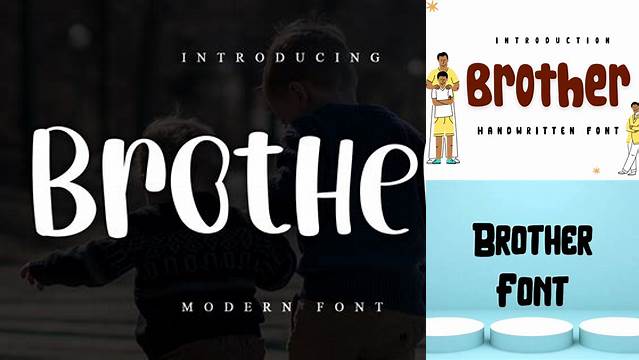
My Brother Font: Free Download & Uses
H2: Unleashing the Power of My Brother Font: A Deep Dive 🔍
My Brother Font is a font that has been used extensively for a variety of design purposes. The font’s popularity stems from its unique and easily recognizable characteristics, making it a go-to choice for designers looking to create a memorable visual impact. My Brother Font isn’t just a set of characters; it's a design element that can significantly enhance the aesthetic appeal of any project, be it a website, a poster, or even a personal invitation. When you choose My Brother Font, you're not just picking a typeface; you're selecting a tool that enables effective communication through visually captivating designs. It's the choice to use a font that is modern and approachable. The font's ability to blend seamlessly into various design contexts further amplifies its appeal. From bold headlines that grab attention to sleek body text that enhances readability, My Brother Font provides versatility that few other typefaces can match. The design is not too heavy, nor is it overly complex, allowing it to be used in many different situations. Designers appreciate its clean lines and well-balanced proportions, making it a reliable choice for both professional and personal projects. To use My Brother Font successfully, consider the overall tone of your design. The font's modern aesthetic pairs particularly well with contemporary themes, while its versatility means it can be used in both formal and informal settings. You can customize the appearance, such as the size, color, and spacing, to suit your needs. Experiment with different styles and weights to see how they complement your overall design goals. It's all about playing with the tools available to you in the design space. Choosing My Brother Font can elevate your project and ensure it stands out. If you need something that's immediately recognizable, you can't go wrong with it. So, whether you are designing for print or digital mediums, My Brother Font offers a comprehensive solution that merges functionality with style. This is the kind of font that will bring your projects to the next level. Let’s explore how to best utilize My Brother Font!
H3: Exploring the Origins and Characteristics of My Brother Font 🧐
Ever wondered about the story behind My Brother Font? This section delves into its origins and key characteristics. Understanding the font's design and historical context will help you use it more effectively. Typically, the characteristics of a font play a vital role in its overall appeal and functionality. These are the kinds of things that give the font its personality. My Brother Font has a design that is both modern and friendly, making it versatile across different projects. It has a clean appearance. It offers an elegant solution that meets the needs of both professional and personal projects. You can customize the appearance of the font. Understanding these elements helps you adapt the font to suit your needs. Knowing the font's design ensures its effective use in various contexts. This is how designers can use it to their advantage. If you have the know-how, you can easily take advantage of the versatility that My Brother Font offers. You can make all kinds of designs and they will be a success. This is the type of font that will allow your creative ideas to come alive. These qualities allow it to deliver a clear and engaging message across all types of media. Knowing how the font was created is another way you can understand it better. Understanding the background allows you to use it to its full extent. Let's learn how it was designed and why its design allows it to be effective. To gain a better understanding of it, you can look at different designs and see how designers are using the font. With all this information, you can create the best designs.
H2: Utilizing My Brother Font in Your Design Projects 🎨
Time to get creative! Once you've installed My Brother Font, you can start incorporating it into your design projects. This is where the real fun begins. Your creativity can come to life with this font. It's time to utilize the power of the font. Designing is fun when you have the right font. You can use it in a variety of projects, so you can start creating. The fun has just begun, and the possibilities are endless. You can start creating your own designs immediately. You can use the font in various projects, so the sky is the limit. Designing is fun, and this font is an excellent choice. It's time to be creative and have a lot of fun. Let's explore how you can start designing.
H2: Conclusion: Embracing My Brother Font in Your Creative Journey 🎉
My Brother Font can be a great tool for any designer, but it's not the only thing that matters. Embrace creativity and explore the world of fonts! You are now ready to embrace your creativity. You're now ready to use My Brother Font. Explore your creative potential using the font. Embrace the creativity the font offers. Creativity is essential when designing. The font is just a tool for your creativity. Explore the creative potential the font offers. You can start creating your own designs. Creativity is your most important tool. The font helps bring your ideas to life. This is a tool you can use for your creations. With creativity, you can do anything. The font will help you explore the world of design. You can start creating your own designs today. It's time to embrace your creativity.